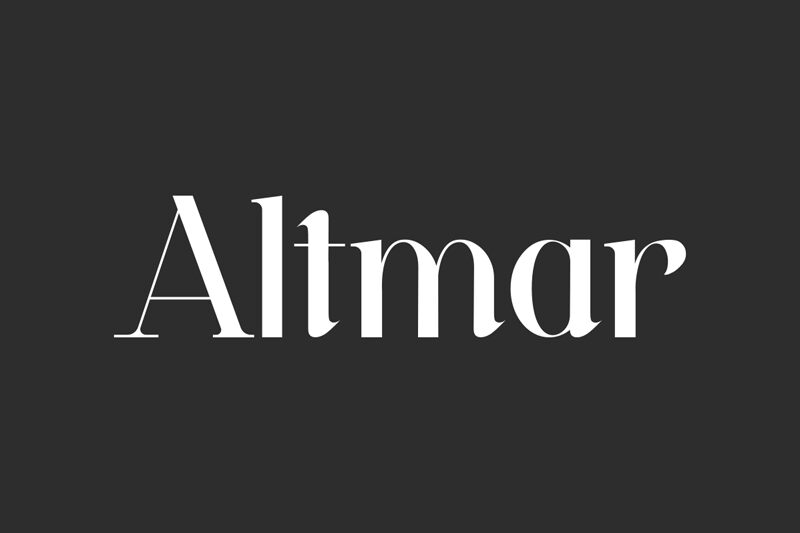
Altmar Demo Italic
Altmar Italic font is an elegant serif font by VinType that offers a classic feel and sophisticated style. Its refined aesthetic and formal appearance make it ideal for projects requiring a touch of timeless elegance. Whether you’re aiming to evoke tradition or simply seeking precision, this free font delivers exceptional quality.
Perfect for branding design, website headers, posters, magazine covers, book titles, invitations, banners, advertisements, packaging design,
name cards and many other displays; this gorgeous typeface instantly creates exquisite legible content that shines in projects of all styles.